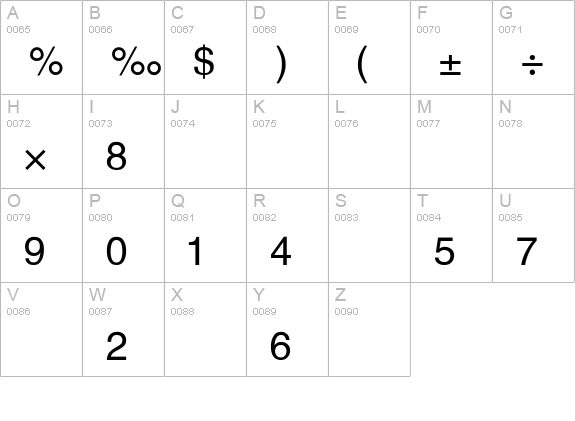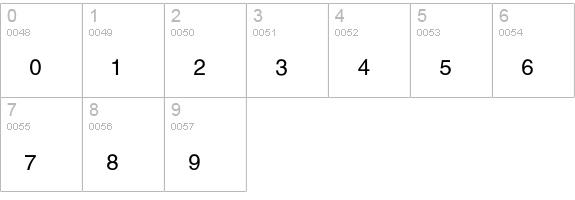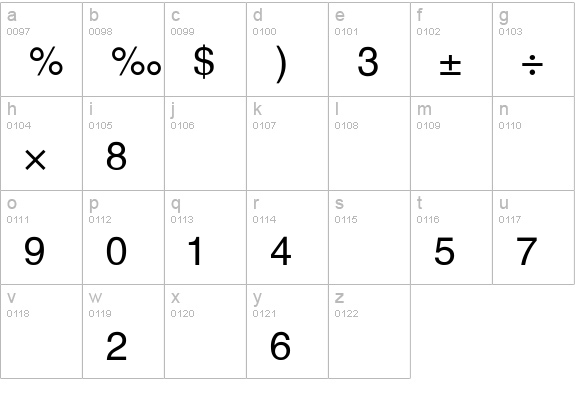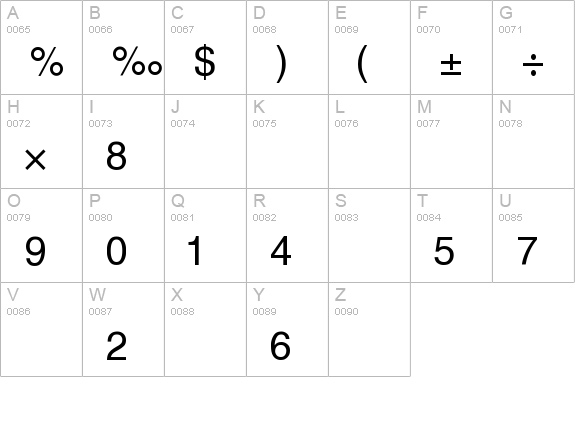
Alex-Fraction-Normal Font Details
Alex-Fraction-Normal is the standard, neutral variant in the Alex typeface family \xE2\x80\x94 well suited to general body text, paragraphs, and standard typographic work.
The Alex-Fraction-Normal font is a sleek and modern typeface designed for creating elegant and sophisticated designs. This versatile font is perfect for use in various projects, from branding to editorial design. Its clean lines and balanced proportions make it a great choice for adding a touch of sophistication to your designs. Best of all, the Alex-Fraction-Normal font is available for free download at FontsMarket.com. Simply visit the website to access this stylish font and enhance your design projects with its timeless appeal. Don't miss out on this opportunity to elevate your work with the Alex-Fraction-Normal font, available for free download now!